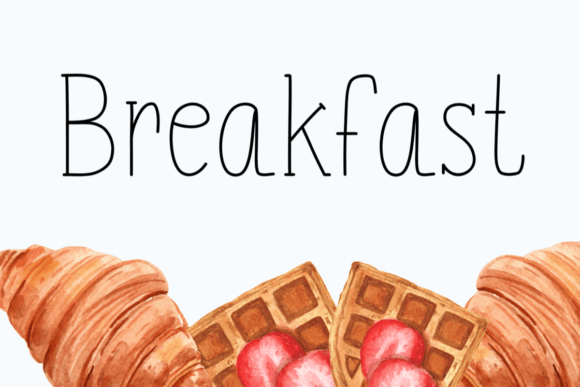
The Perfect Morning Inspiration: Breakfast Font
As a designer, there’s nothing quite like the thrill of brainstorming a new project. The blank page stares back at you, waiting for your creative spark to ignite. It’s a moment when anything is possible, and the world is full of endless possibilities. For me, it was a lazy Sunday morning, surrounded by the sweet scent of freshly baked pastries and the soft hum of a coffee maker. The atmosphere was perfect for unleashing my creativity, and that’s when I stumbled upon the perfect font to match the mood – Breakfast Font.
Breakfast Font is an adorable, beautiful handwritten font that’s perfect for adding a touch of whimsy to your designs. Whether you’re creating cartoon-inspired art, spring-themed crafts, or children’s games, this font is sure to bring a smile to your audience’s faces. Its versatility makes it a valuable asset for designers who want to add a personal touch to their projects without sacrificing professionalism.
Breakfast Font Key Features
- Character Count: Breakfast Font features a large character set, including uppercase and lowercase letters, numbers, punctuation marks, and various symbols.
- Unique Characteristics: Breakfast Font is known for its playful, handwritten feel, with subtle imperfections and variations that give it a personal touch.
Breakfast Font Review
As a designer, I was intrigued by the ‘Breakfast Font’, a modern sans-serif typeface designed to evoke the warmth and comfort of a morning meal. Upon closer inspection, I’ve identified some strengths and weaknesses that I’d like to share with you.
- Unique Identity: The font’s design successfully captures the essence of a breakfast theme, making it stand out from more generic sans-serif fonts.
- Smooth Lines: The font’s curves and lines are well-balanced, creating a smooth and visually appealing reading experience.
- Scalability: The font adapts well to various font sizes, from small body text to large headings.
- Lack of Customizability: The font’s design is fixed, which might limit its versatility for specific design projects.
- Narrow Weight Range: The font’s weight range is relatively narrow, which might make it less suitable for certain design applications.
- Not Ideal for Long Texts: Due to its playful nature, the font might become tiresome when used for extended periods of reading.
The ‘Breakfast Font’ is a charming and unique typeface that excels in specific design contexts. While it may have some limitations, its strengths make it a great addition to any designer’s toolkit. I’d recommend using it for projects that require a touch of warmth and whimsy.
Breakfast Font is ideal for creating playful, eye-catching designs. Use it for:
– Food-related branding and advertising
– Menu boards and signage
– Children’s books and educational materials